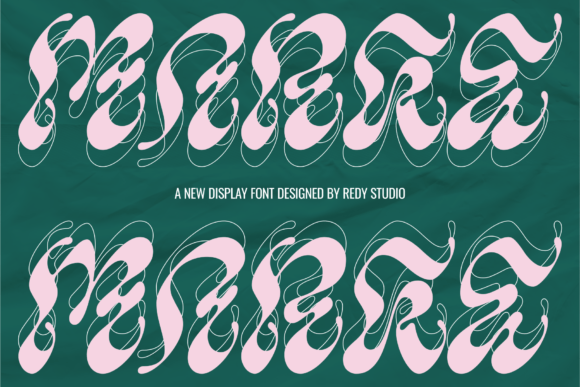
Embrace the Psychedelic Revolution: Dive into the World of Marke Display Font
Prepare to embark on a visual odyssey as you encounter Marke Display, the font that will redefine your design horizons. This extraordinary creation from RedyStudio is not just a typeface; it's an artistic gateway to a realm of vibrant colors, fluid shapes, and boundless imagination. Marke Display is the ultimate expression of psychedelic art, meticulously crafted to captivate attention and leave an indelible mark on your designs.
Unleash Your Inner Artist: Where Creativity Meets Daring
With Marke Display, you hold the key to unlocking your creative potential. Its dynamic curves and unconventional shapes dance across the page, igniting a symphony of visual intrigue. Each letter exudes a sense of energy and movement, as if infused with the very essence of psychedelic culture. The font's vibrant and contrasting hues burst forth like a kaleidoscope of colors, demanding attention and inspiring awe.
Make a Statement: Stand Out from the Crowd with Psychedelic Flair
In a world saturated with ordinary fonts, Marke Display emerges as a beacon of individuality. It's the perfect choice for those who seek to make a statement, to break free from the mundane and embrace the unconventional. Whether you're creating music festival posters, album covers, party invitations, or any other visually captivating design, Marke Display will elevate your work to new heights.
Experience the Psychedelic Renaissance: A Font for the Modern Age
Marke Display is more than just a font; it's a reflection of the resurgent psychedelic movement, a cultural phenomenon that celebrates creativity, self-expression, and the exploration of consciousness. By incorporating this typeface into your designs, you align yourself with this cultural movement, tapping into its energy and expressing your own unique perspective.
Dare to be Different: Embrace the Psychedelic Revolution
Join the ranks of those who dare to be different, those who embrace the mesmerizing allure of Marke Display. Let your designs radiate with unconventionality, captivating your audience with every stroke of this extraordinary font. Step into the psychedelic realm, where imagination knows no bounds, and experience the transformative power of Marke Display.